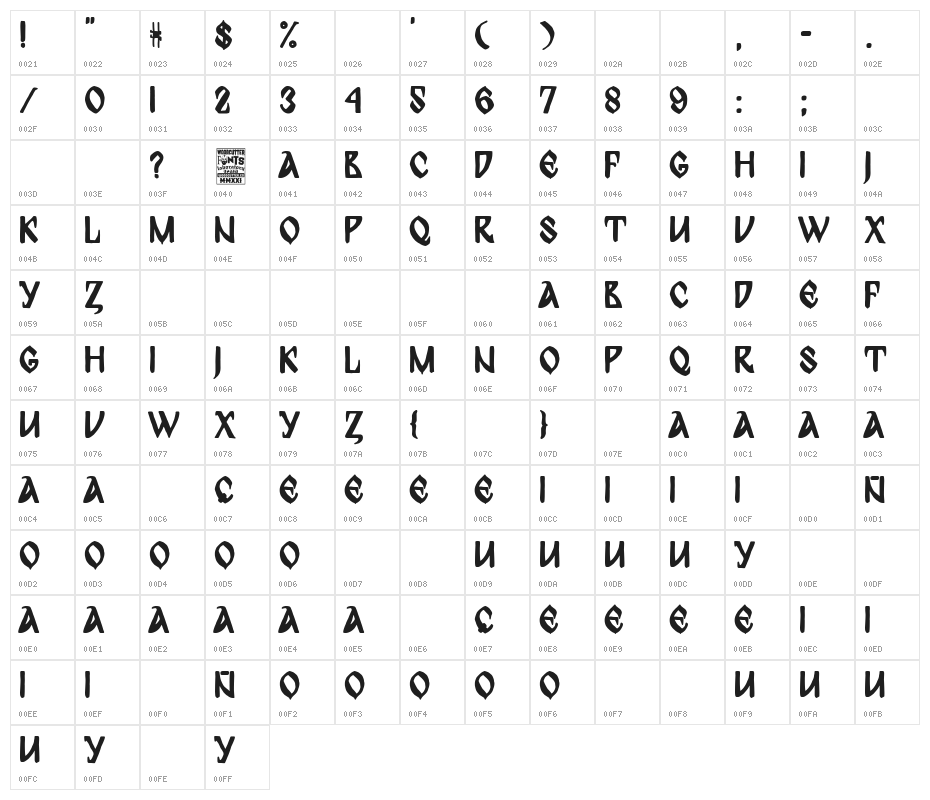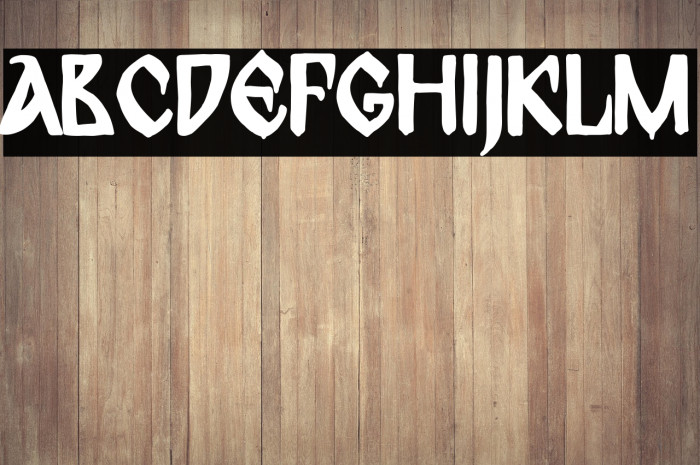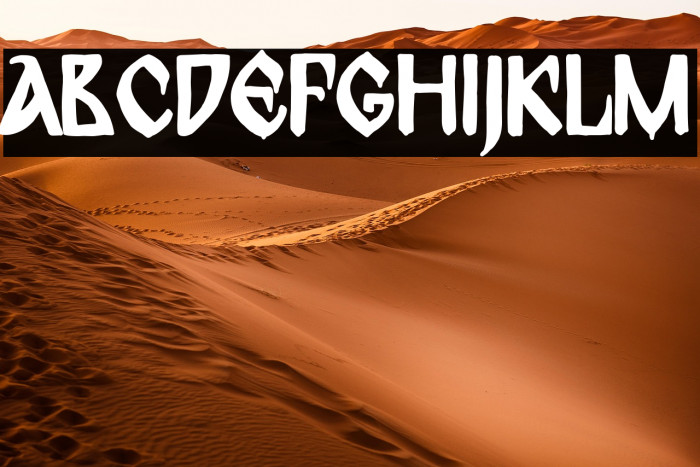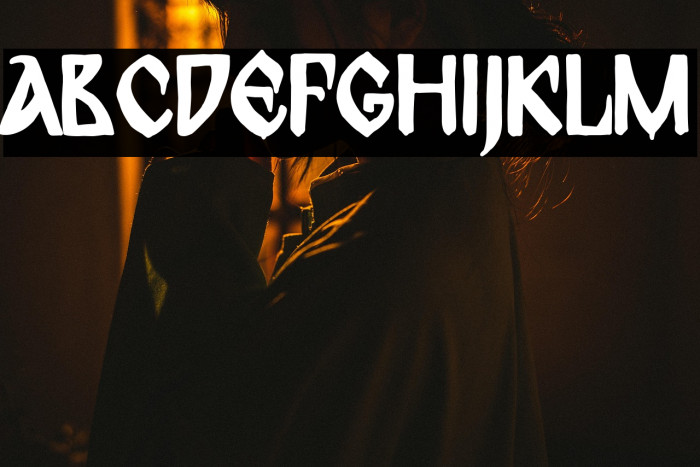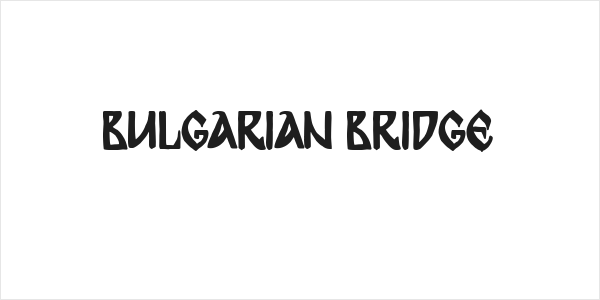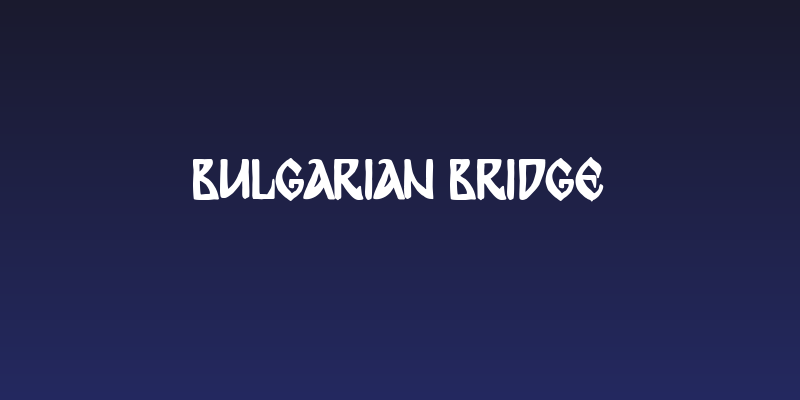
Bulgarian Bridge Font
Bulgarian Bridge Description
This font features a bold and dynamic style with a distinct, hand-drawn appearance. The characters are thick and slightly irregular, giving them a lively and energetic feel. The uppercase and lowercase letters maintain a consistent weight, contributing to a cohesive look. The numbers and special characters are equally bold, ensuring readability and impact. The overall design is reminiscent of graffiti or street art, making it stand out with its unique and artistic flair.
| Proposed Projects | Ideal for projects that require a bold and artistic touch, such as posters, album covers, and street art-inspired designs. |